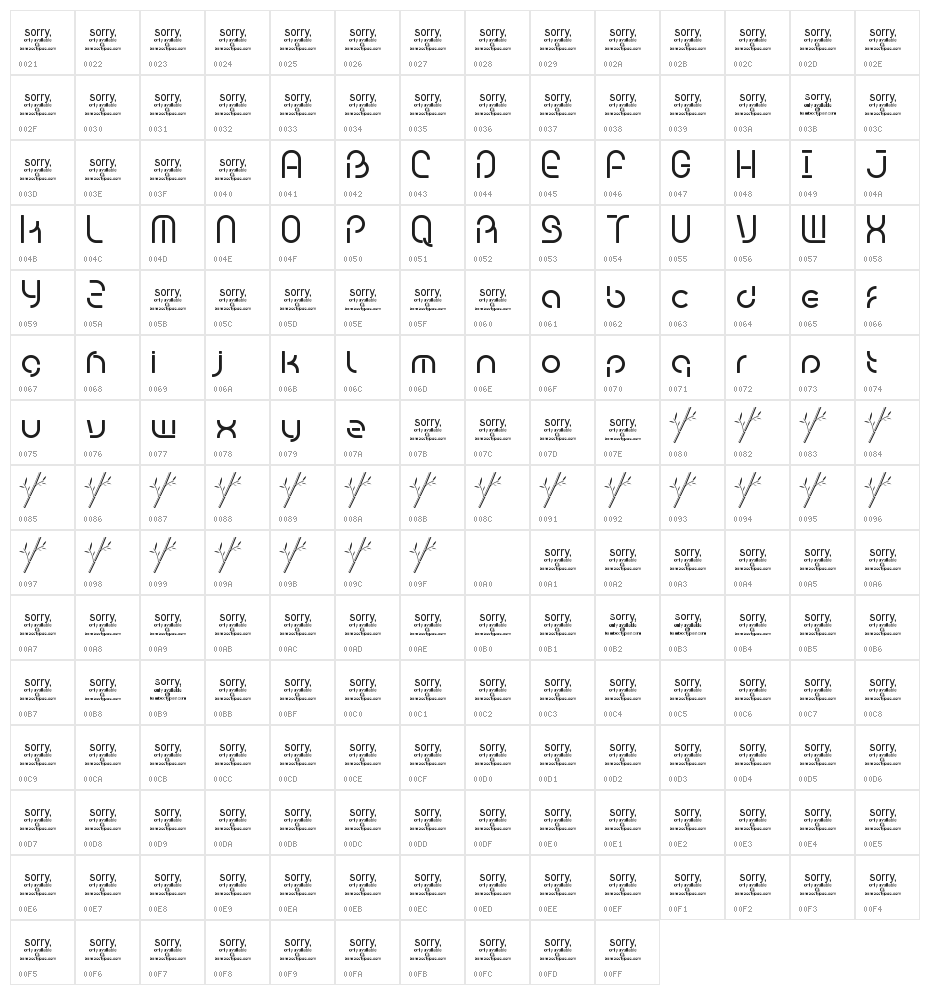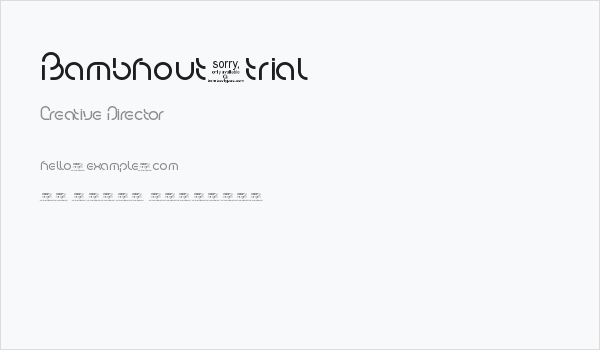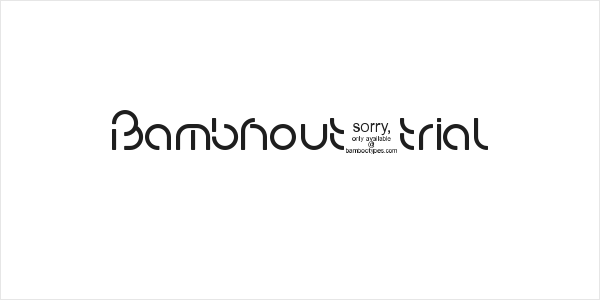
Bambhout_trial Font
Bambhout_trial Description
This font features a modern, geometric design with a unique blend of curves and straight lines. The characters are constructed with a consistent stroke width, giving it a clean and uniform appearance. The uppercase letters have a futuristic feel, with some characters incorporating unexpected angles and cuts that add a distinctive flair. The lowercase letters maintain the same geometric style, ensuring cohesion across the typeface. The numbers and special characters follow the same design principles, making this font versatile for various applications. Its overall aesthetic is sleek and contemporary, suitable for projects that require a modern touch.
| Use Case | Headlines, Logos, Digital media |
| Proposed Projects | Ideal for branding, advertising, and digital media projects that require a contemporary and distinctive look. |